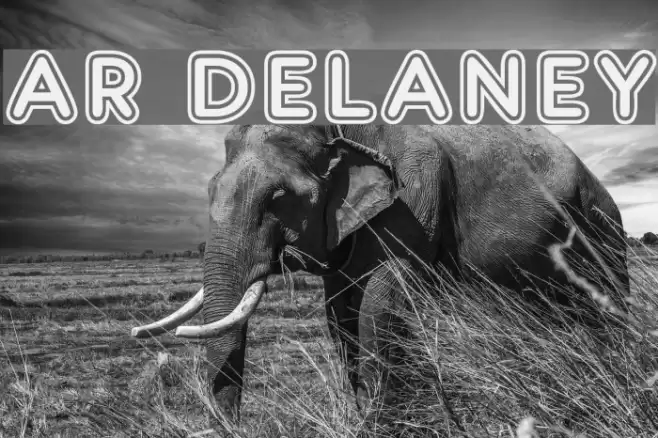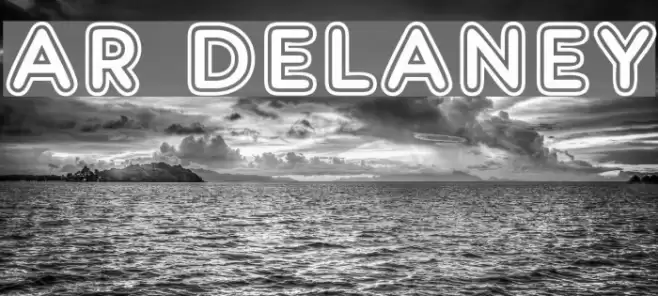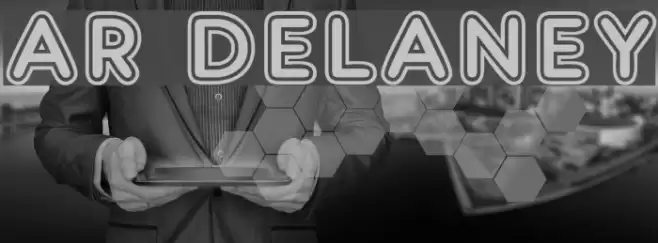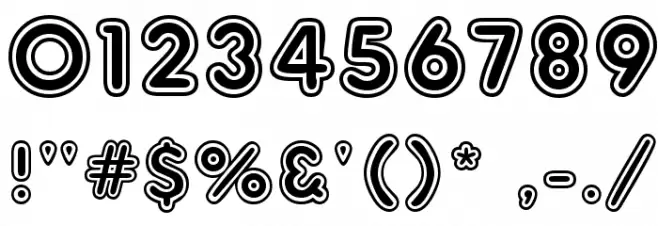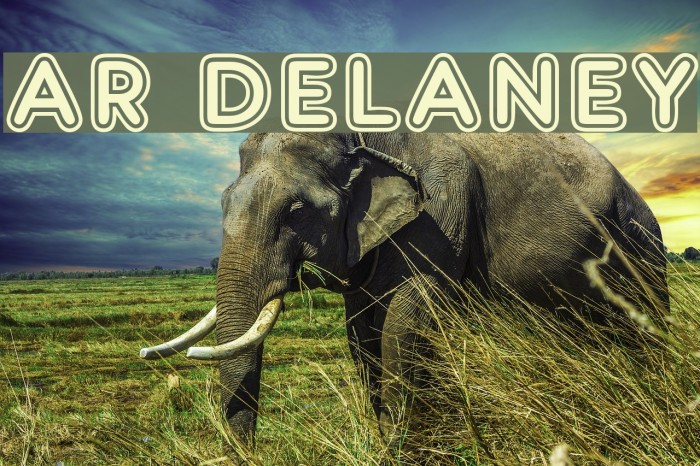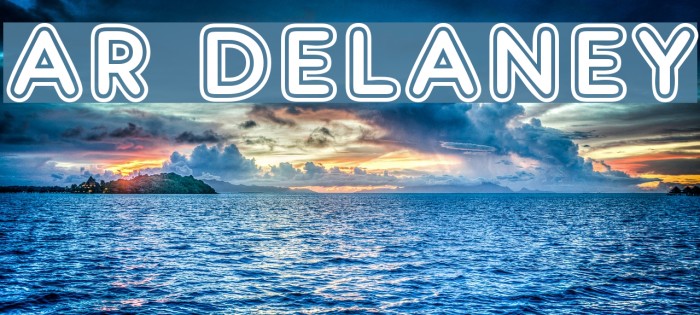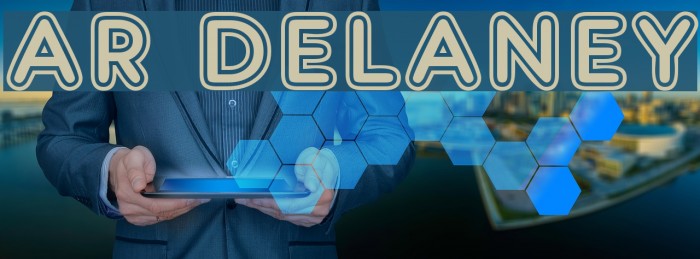
AR DELANEY Font
AR DELANEY Description
This font features a bold, outlined style with a playful and eye-catching appearance. Each character is defined by a thick outer line that creates a hollow effect, making it stand out prominently. The letters are uniformly shaped with rounded edges, contributing to a friendly and approachable look. The consistent stroke width and geometric structure give it a modern feel, while the outlined design adds a layer of depth and dimension. This font is versatile, suitable for various creative projects where a bold statement is needed.
A bold, outlined font with a playful and modern appearance from Uncategorized fonts.
- Proposed Projects: Ideal for posters, headlines, logos, and branding materials that require a strong visual impact.